Free Futuristic Fonts You Should Know
Free Futuristic fonts are a collection of bold, edgy, and geometric font styles that will stand the test of time. These types of fonts are perfect for branding, logo design, and titles. If you want your projects to stand out and make a statement, then using a futuristic font is a great way to do so. This collection includes ten unique and versatile fonts that are perfect for any project in need of a unique type style.
These cool sci fi fonts are a great option for titles or as a header type. It is a very basic type style with thin wedges that create an impressive design. The thin lines within the letters create an elegant look while the color options make this type style perfect for any occasion.
This type style is a great option for body text as the design is impressive but not overbearing. The thin lines create an elegant look while the color options make this type style stand out. This type style is also a great option for logos and branding for businesses that want to make a statement and stand out from the crowd. This font is also perfect for wreaths, cards, posters, and other decorative items.
These fonts are all incredibly versatile and can be used for a range of purposes. In this post we have listed the top free Futuristic fonts you should know. Using these fonts is a great way to save money while increasing your professional presence.
Begaron – Retro Futurism Fonts
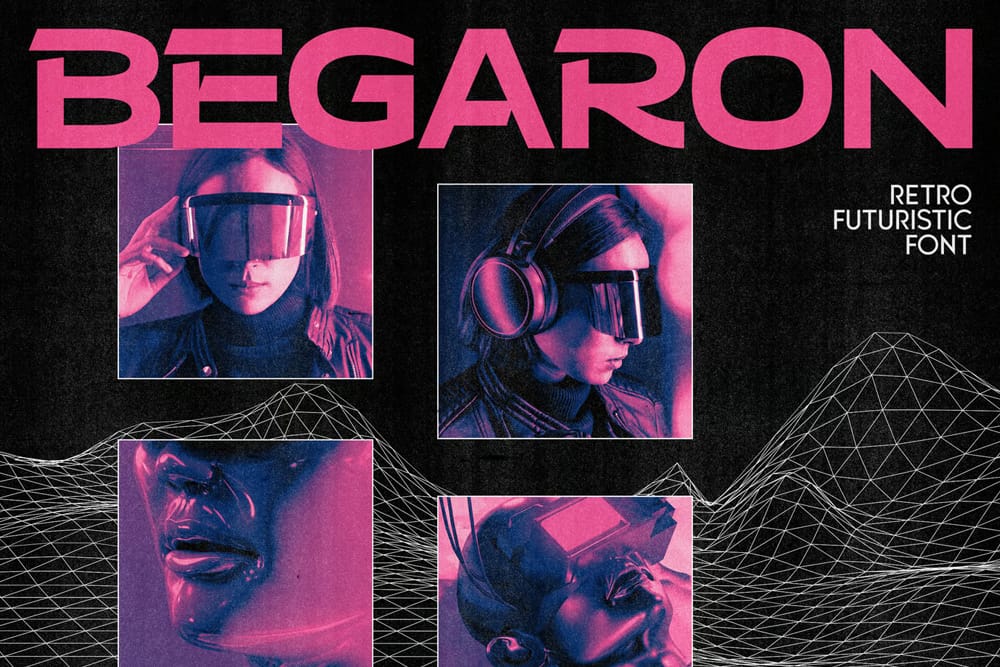
Wavy Futuristic Display Font
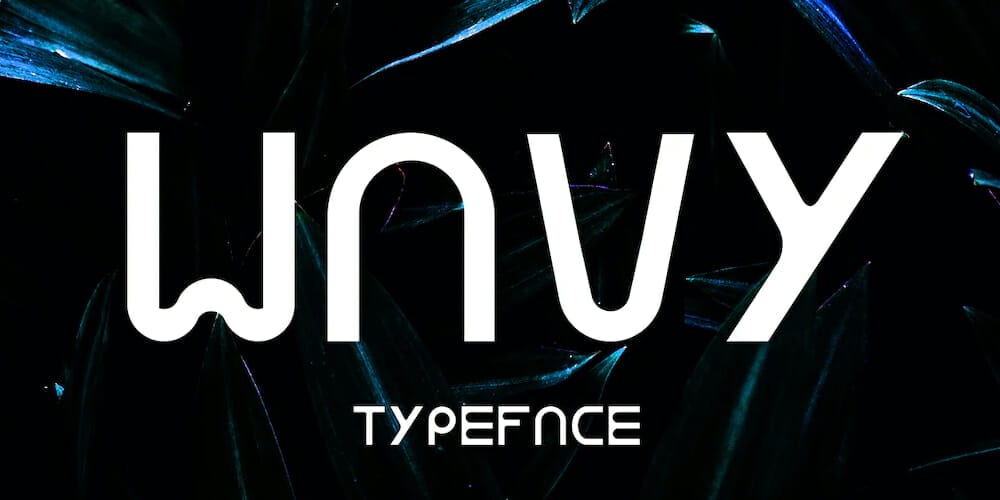
Astron Sci-Fi Display Font
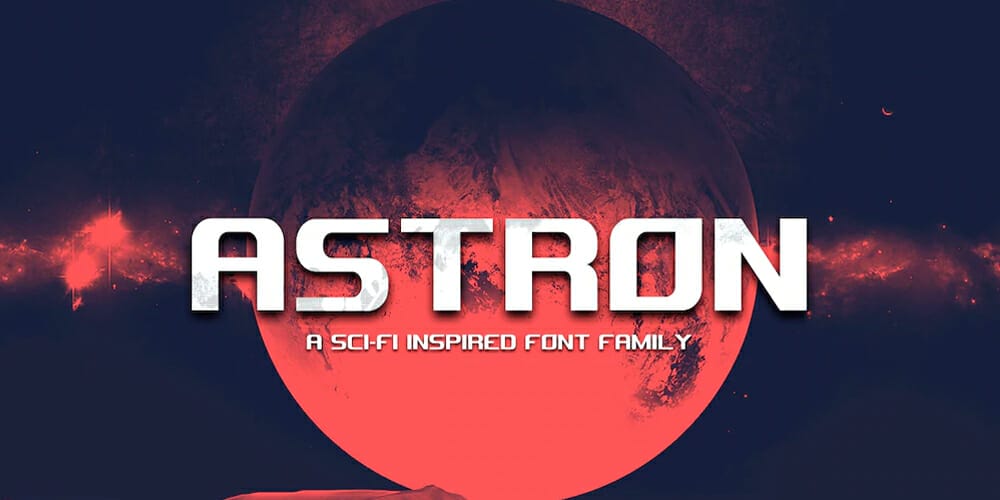
Megabeat – Retro Futurism Fonts
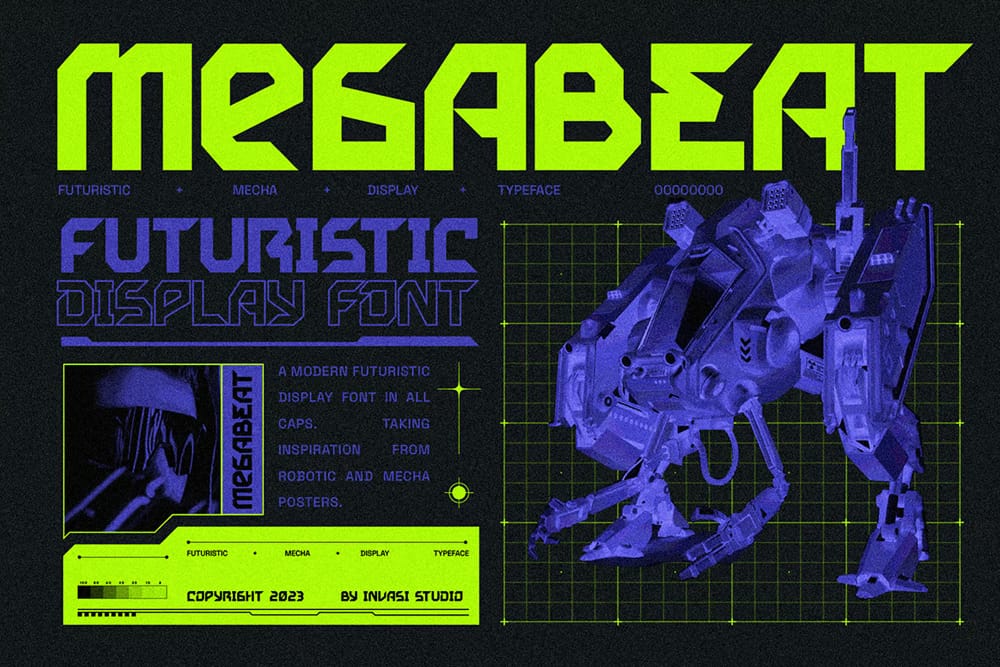
Overtaking Font
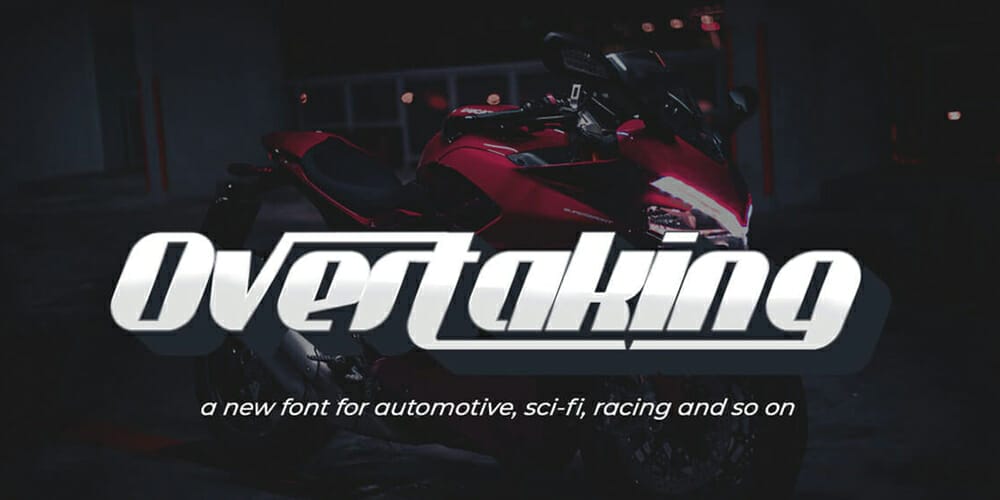
Nidus Sans
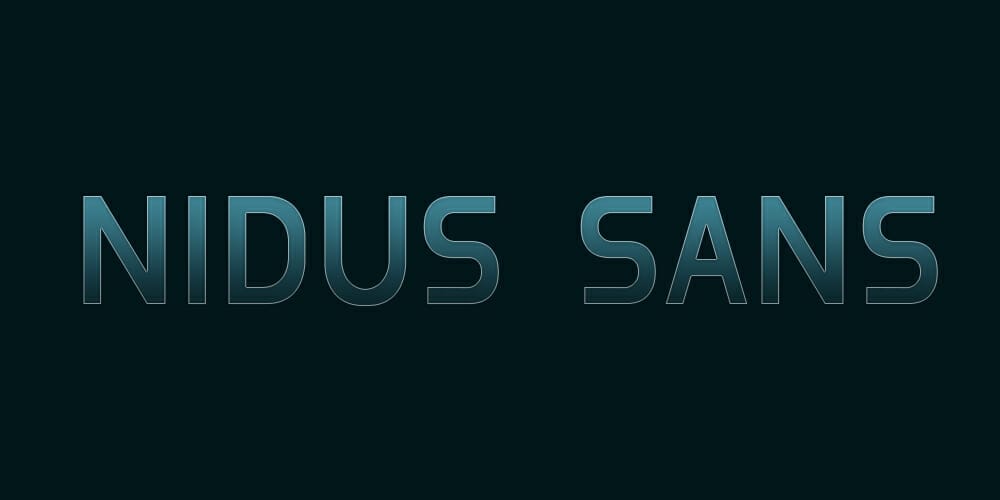
Gudwil – Futuristic Display Font
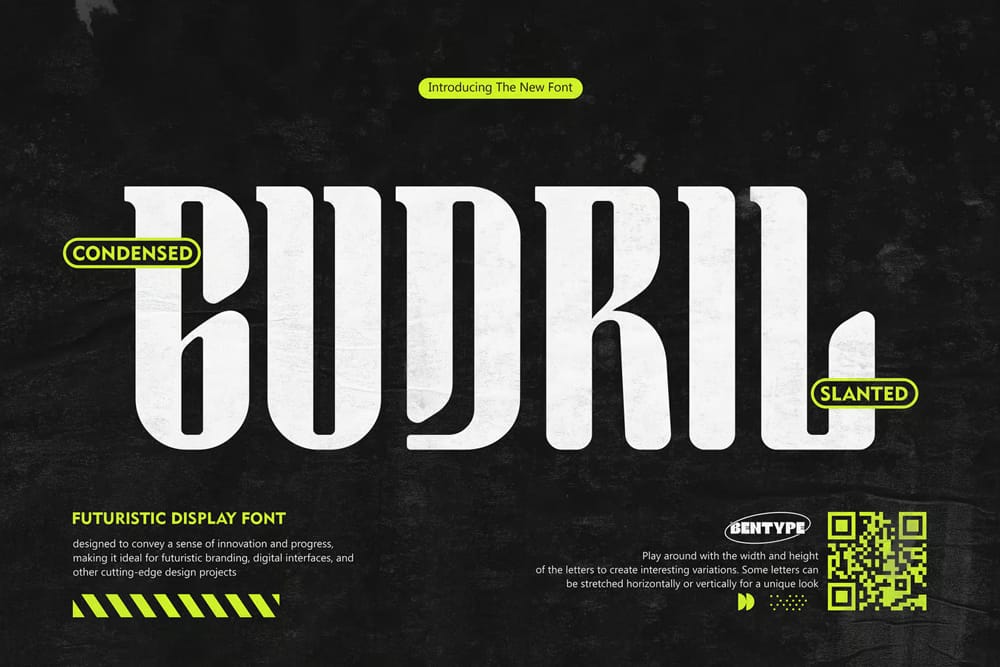
Botera Font
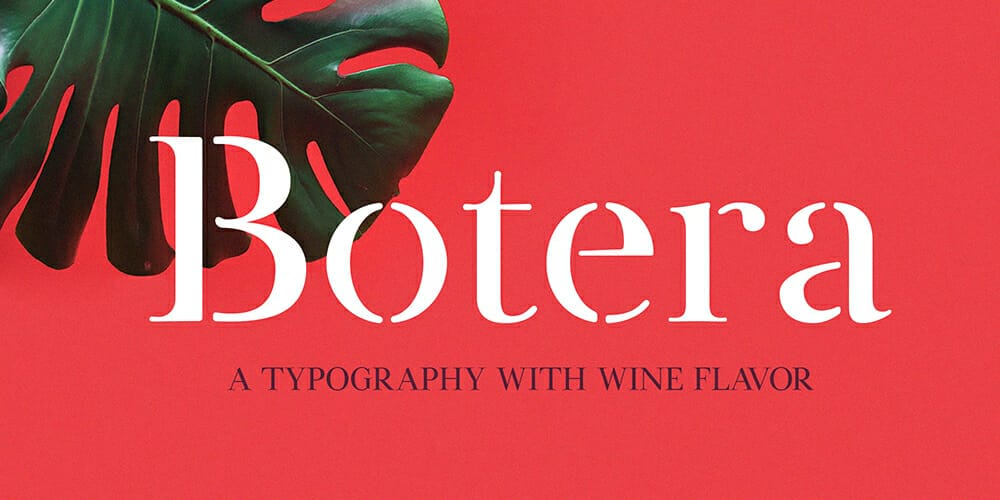
Xirod Font
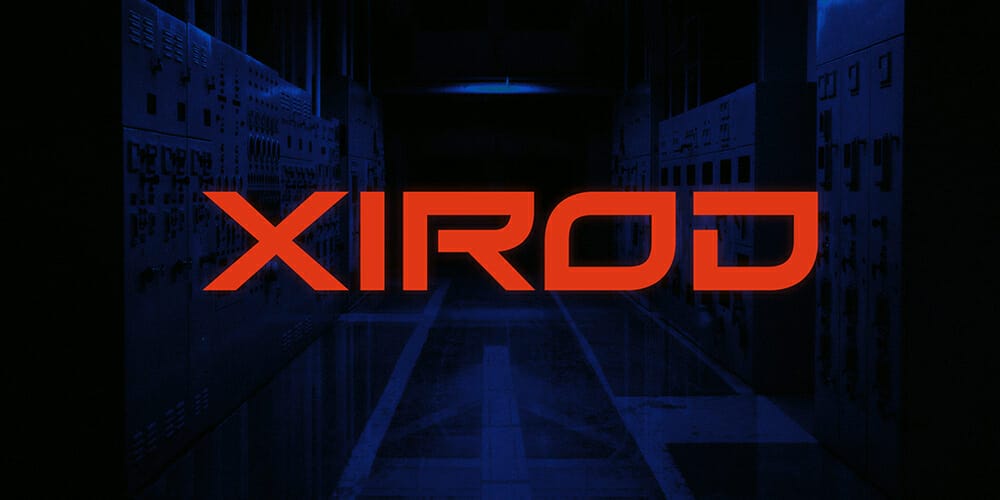
Orbitron Font
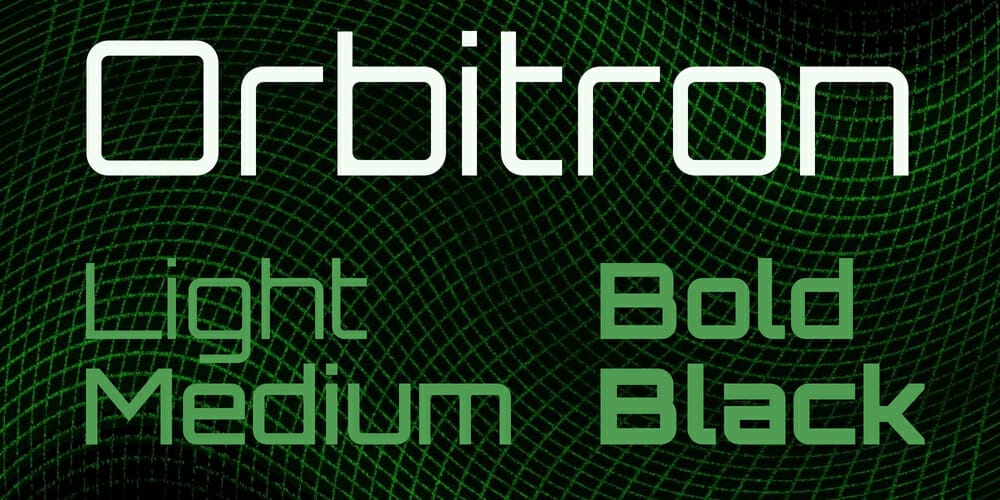
Himagsikan
Mash-Up Typeface
Exo
Lot Font
YKAR
Anurati Font
Vetmia Typeface
Teqto
Procrastinating Pixie Font
Oxanium Font
Blanka
One Day Font
Betatron
Kosmos Font
Stifly
Artypa Typeface
Dual Typeface
Xyber Font
Phage
Greatelo
Potra Display Font
Centrion
Woodwarrior
Quantum Typeface
Project Space
Kepler-452b
Xfecta Typeface
Pulsar Typeface
Strong Concrete Font
Inoma Typeface
Plaztma Typeface
Onek Tubular Font
NuMono Font
Barmo Futuristic Tech Font
Scorn Font
Azonix -Free Futuristic Fonts
Neomax Font
Adversal Font
Nitrogine
Mad Squire Typeface
Spacer Font
Galactico
Neuropol X Font
CS Merquise Typeface
Syncrone Display Font
Aqua Grotesque
Moonrock Typeface
Borg
Elianto Font
Ron Typeface
Alexana Neue Typeface
Beware Font
Beams Typeface
Arkhip Typeface
Perfect Dark BRK Font
Mexon Font
Zero Hour
Sencro Typeface
Kremlin Samovar
Saved By Zero
Boom Box Font
Marske Font
Evidence Font
Induction
Slant
Elnath
Robtronika Font
RedPixel 3D Color Font
Blern Typeface
Motorblock Font
Reckoner Typeface
Acne
Melete
Helmet Font
Rogueland Slab
Abyssopelagic Typeface
Xyber Futuristic Typeface
Gpkn
Enjoy Please Typeface 2
Alinx Typeface
Serpent
LW90 Font
Neuropolitical
Freedom Font
Gamefly Font
Aryake Typeface
B-Sign Display Font
Mechaside Sci-Fi Font
Basilisk Futuristic Font
Edge of the Galaxy Font
Monobloco Font
Astonpoliz Font
Acro Mono Display Font
Dune Rise Font
Hyperion Font
M290 Font
Ferrite Core
NCL REKRON
NEMESYS – Futuristic Cyberpunk Font
Halfomania – Futuristic Sans Serif
Monoton
Angular – Futuristic Dystopian Font